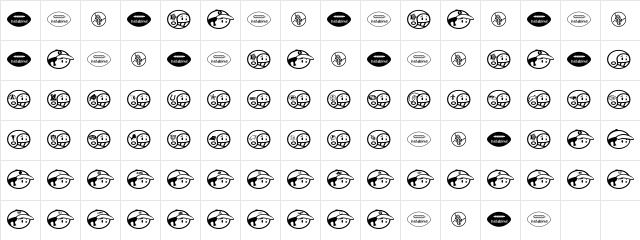
Sporto Regular
Design Context for Sporto
Sporto brings high-energy athletic personality to the page - its confident, muscular forms are built for impact.